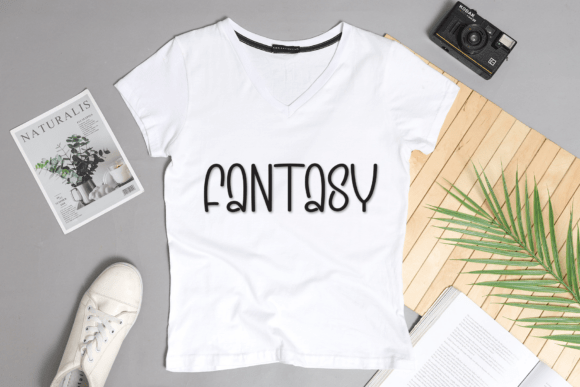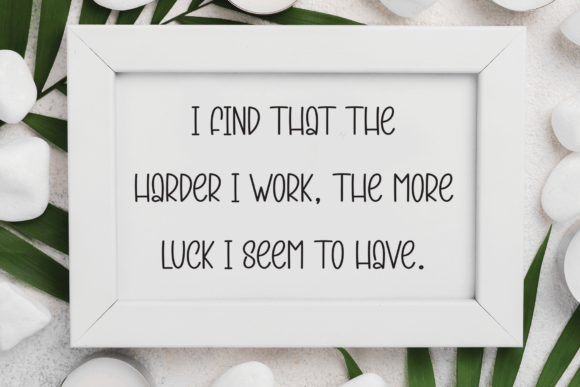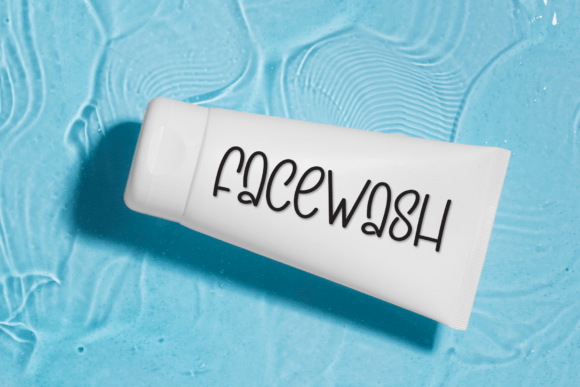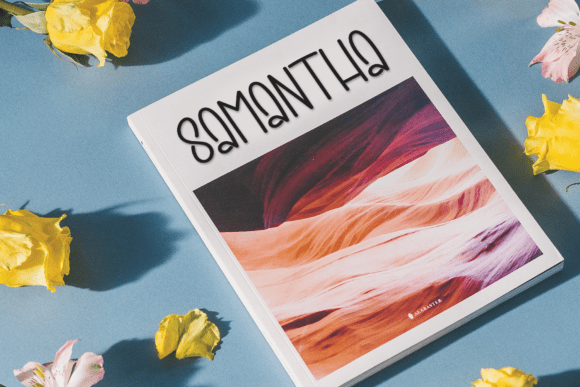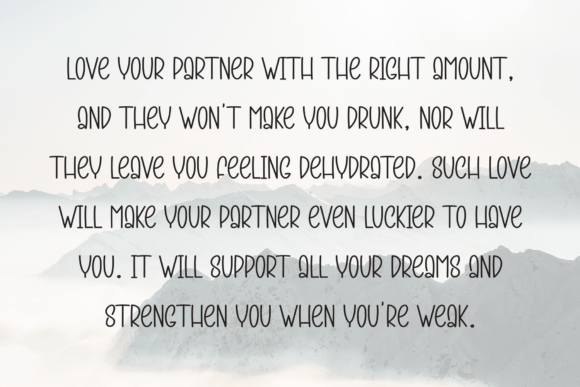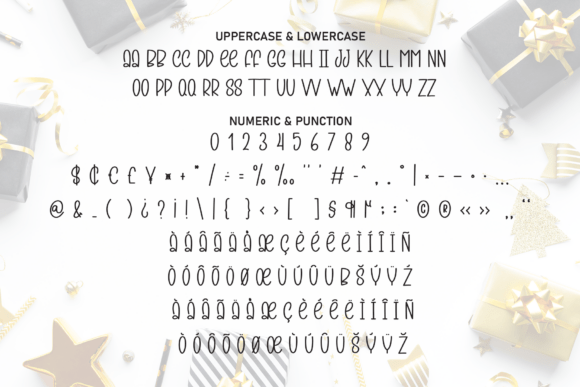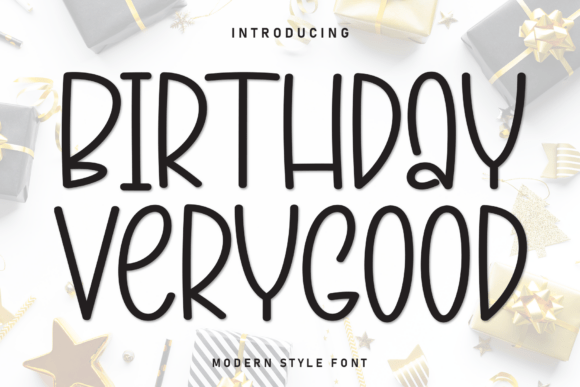
Introducing Birthday Verygood Font: The Ultimate Choice for Adding a Touch of Warmth and Whimsy to Your Designs
Are you tired of using the same old fonts for your designs? Do you want to add a touch of warmth and friendliness to your wedding invitations, greeting cards, and other creations? Look no further than the Birthday Verygood Font, a charming handwritten display font that is sure to breathe life into your designs. With its delightful and playful flair, this font is the perfect choice for designers and crafters who want to create attractive and inviting pieces that exude joy and uniqueness.
Handwritten fonts have a way of adding a personal touch to designs, making them feel more approachable and relatable. The Birthday Verygood Font is no exception, with its casual yet elegant script style that creates a sense of warmth and friendliness. This font is perfect for designers who want to add a touch of whimsy and playfulness to their creations, whether it’s a wedding invitation, a greeting card, or a social media post.
What Makes Birthday Verygood Font So Special?
So, what sets the Birthday Verygood Font apart from other fonts? Here are just a few reasons why this font is a cut above the rest:
- Delightful and Playful Flair: The Birthday Verygood Font has a delightful and playful flair that makes it perfect for designs that call for a joyful touch. Whether you’re creating a wedding invitation or a birthday card, this font is sure to add a smile to the recipient’s face.
- Casual yet Elegant Script Style: The font’s casual yet elegant script style makes it perfect for creating attractive and inviting pieces. The font’s elegant lines and curves create a sense of sophistication, while its casual feel makes it approachable and relatable.
- Steeped in Sweetness and Fun: The Birthday Verygood Font is steeped in sweetness and fun, making it perfect for designs that require a touch of whimsy and playfulness. Whether you’re creating a design for a child’s birthday party or a wedding, this font is sure to add a touch of magic to your creation.
How to Use Birthday Verygood Font in Your Designs
Using the Birthday Verygood Font in your designs is easy. Here are a few tips to get you started:
- Pair it with Other Fonts: The Birthday Verygood Font pairs well with other fonts, making it easy to create a unique and visually appealing design. Try pairing it with a bold font for a striking contrast, or with a simple font for a more subtle look.
- Use it for Headings and Titles: The Birthday Verygood Font is perfect for headings and titles, where its playful and whimsical flair can really shine. Use it to add a touch of personality to your design and make it stand out.
- Add it to Your Digital Designs: The Birthday Verygood Font is not just limited to print designs. You can also use it in your digital designs, such as social media posts, blog headers, and more.
Why Designers and Crafters Love Birthday Verygood Font
Designers and crafters love the Birthday Verygood Font for many reasons. Here are just a few:
- Easy to Read: The font is easy to read, making it perfect for designs where clarity is important.
- Versatile: The Birthday Verygood Font is versatile, making it suitable for a wide range of designs, from wedding invitations to social media posts.
- Unique: The font’s unique and playful flair makes it stand out from other fonts, adding a touch of personality to your designs.
In conclusion, the Birthday Verygood Font is a charming handwritten display font that is sure to add a touch of warmth and whimsy to your designs. With its delightful and playful flair, casual yet elegant script style, and steeped in sweetness and fun, this font is perfect for designers and crafters who want to create attractive and inviting pieces. Whether you’re creating a wedding invitation, a greeting card, or a social media post, the Birthday Verygood Font is sure to make your design stand out. So why wait? Try the Birthday Verygood Font today and see the difference it can make in your designs!